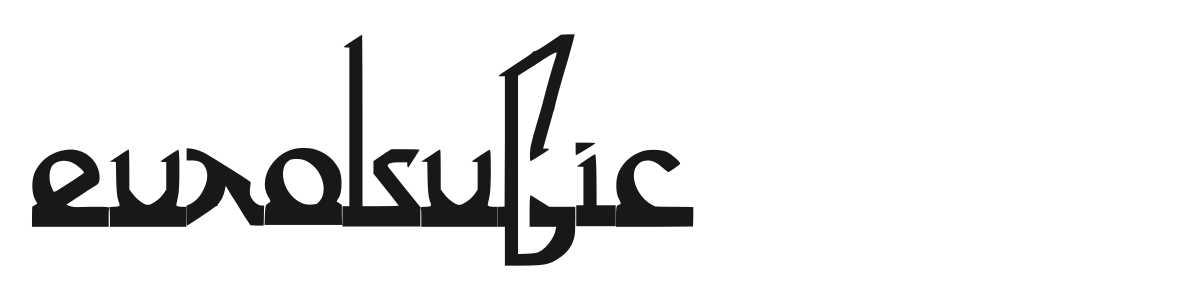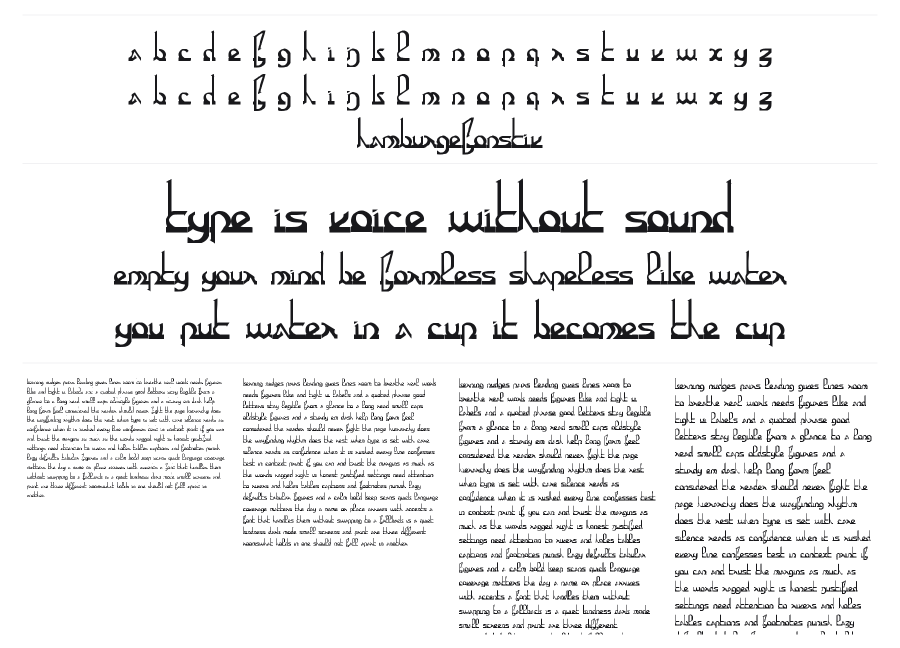
Eurokufic
by Louis Renou
EurokuficLicense is a bold Latin display face styled after Kufic Arabic calligraphy, giving familiar letters an angular, inscriptional quality that reads as genuinely foreign. Sharp rectangular cutouts and flat horizontal tops create an architectural tension that the author likens to elvish script. It works at large sizes where its intricate geometric geometry can breathe.